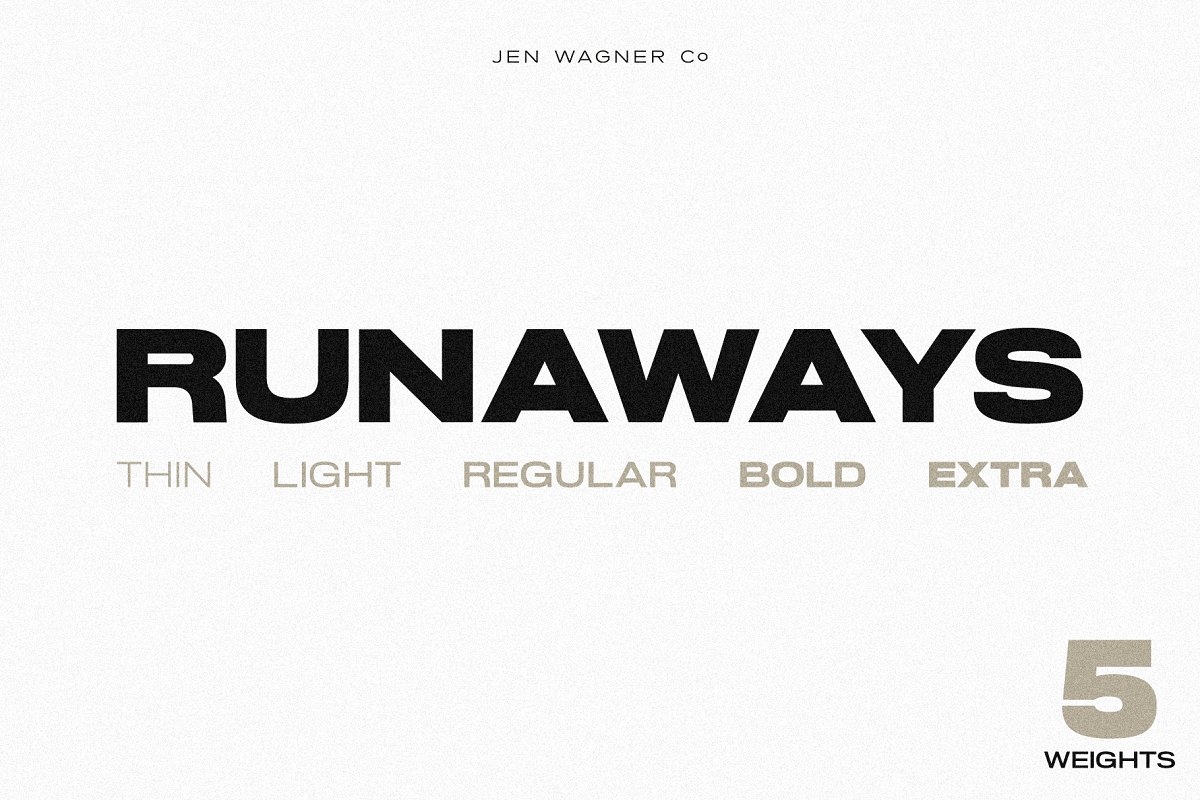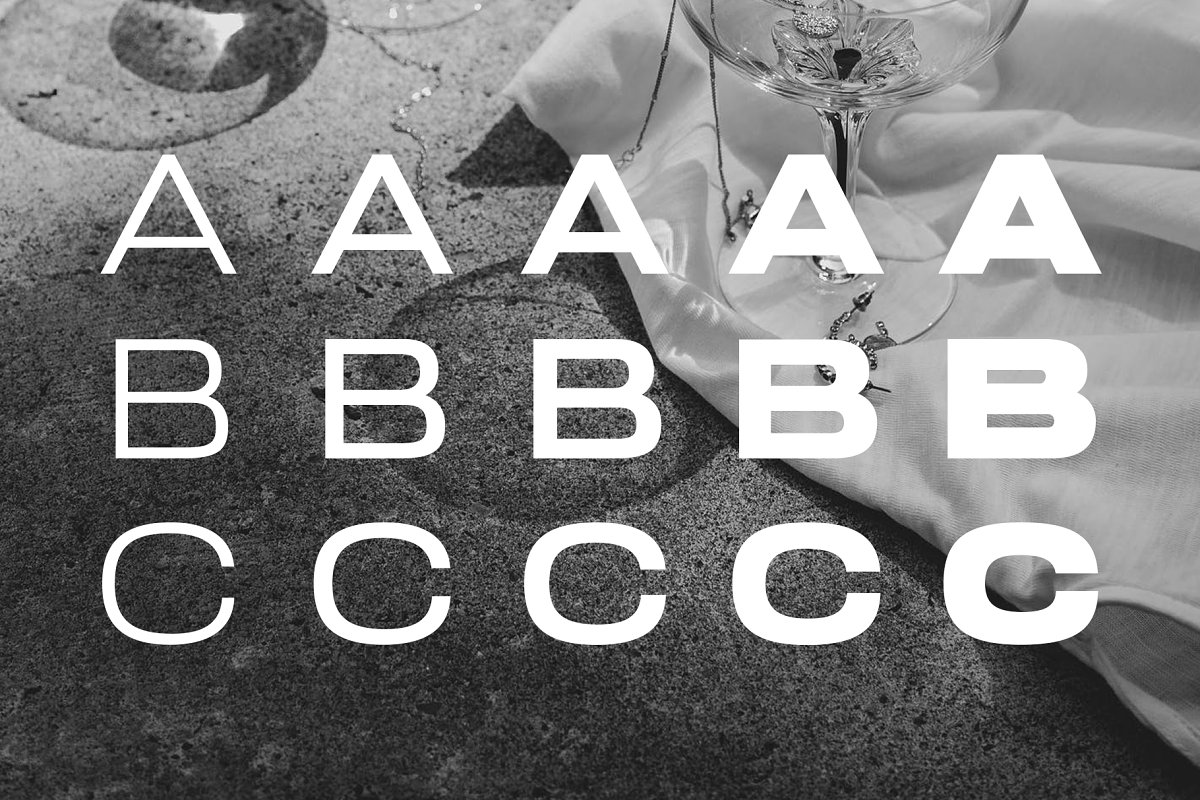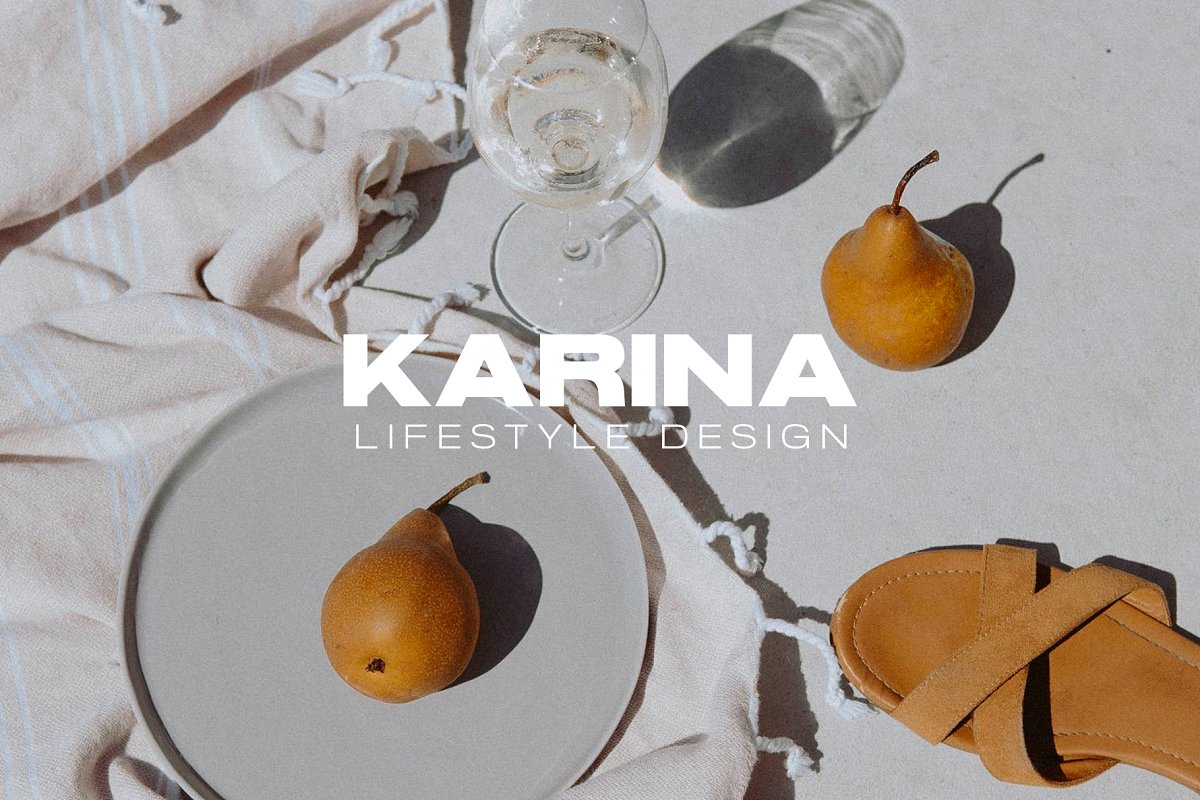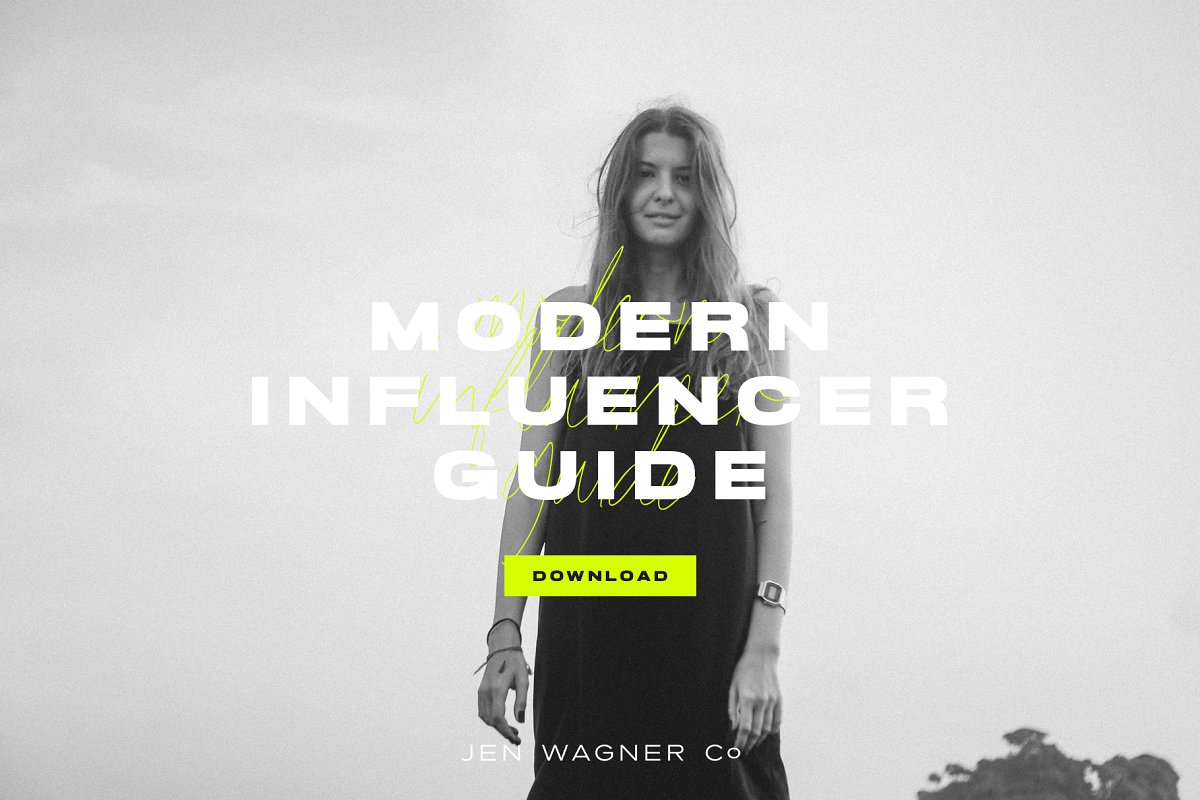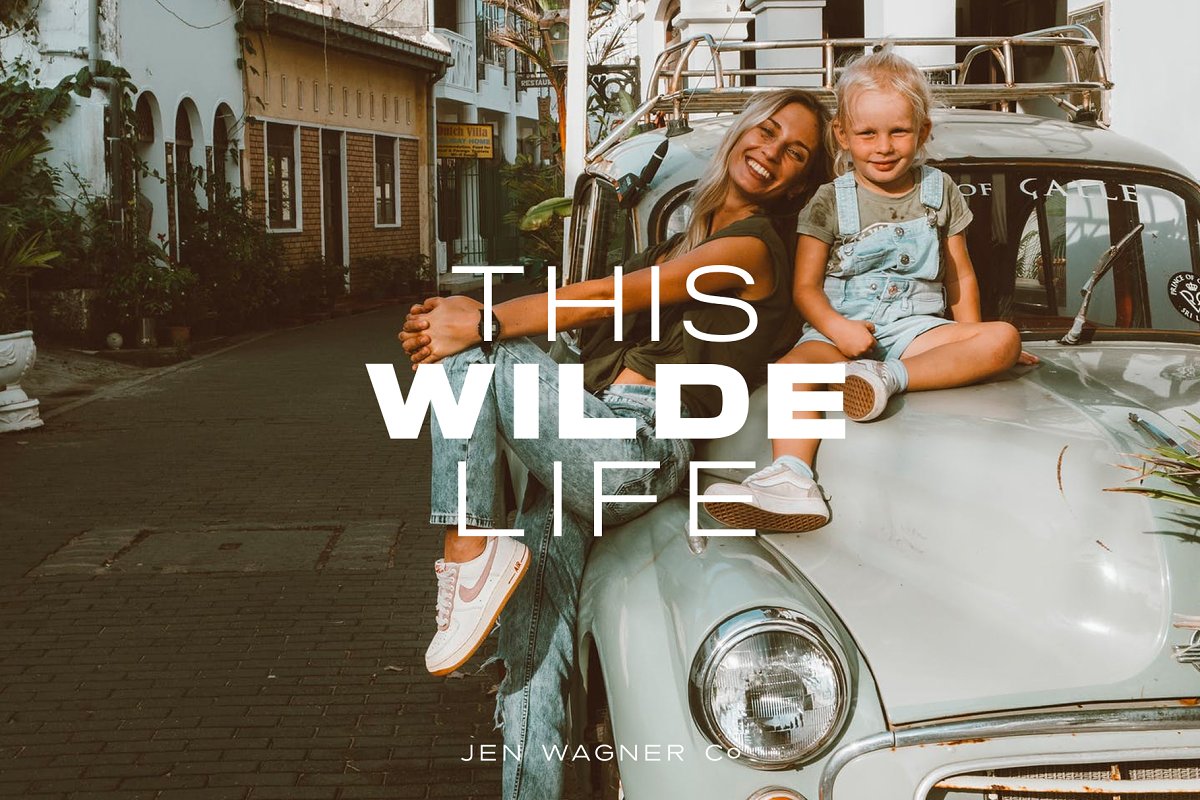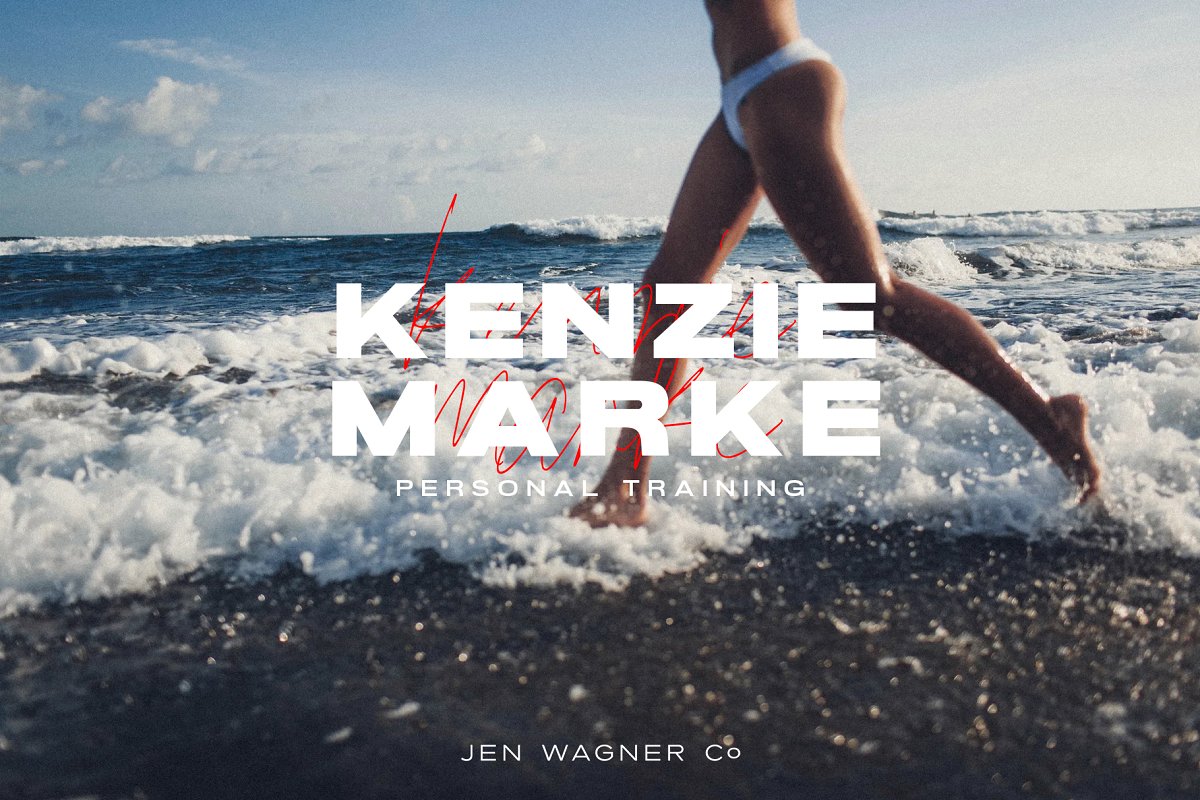
About the Runaways | A Powerful, Bold Sans
Runaways is a powerful and bold display sans, perfect for web headings and logos, Designed to create impact and set your message apart, Runaways is the perfect font for powerful feminine brands, bold websites, & impactful quotes, Plus, you’ll get the flexibility of five distinctive weights to create contrast and hierarchy in your work, so finding a secondary font won’t be a headache